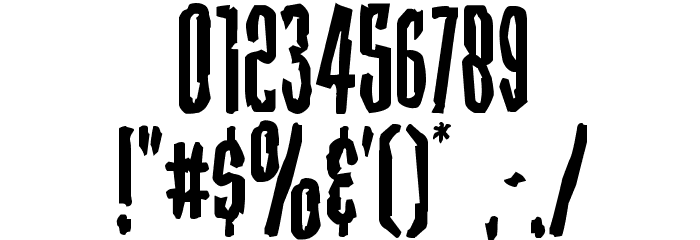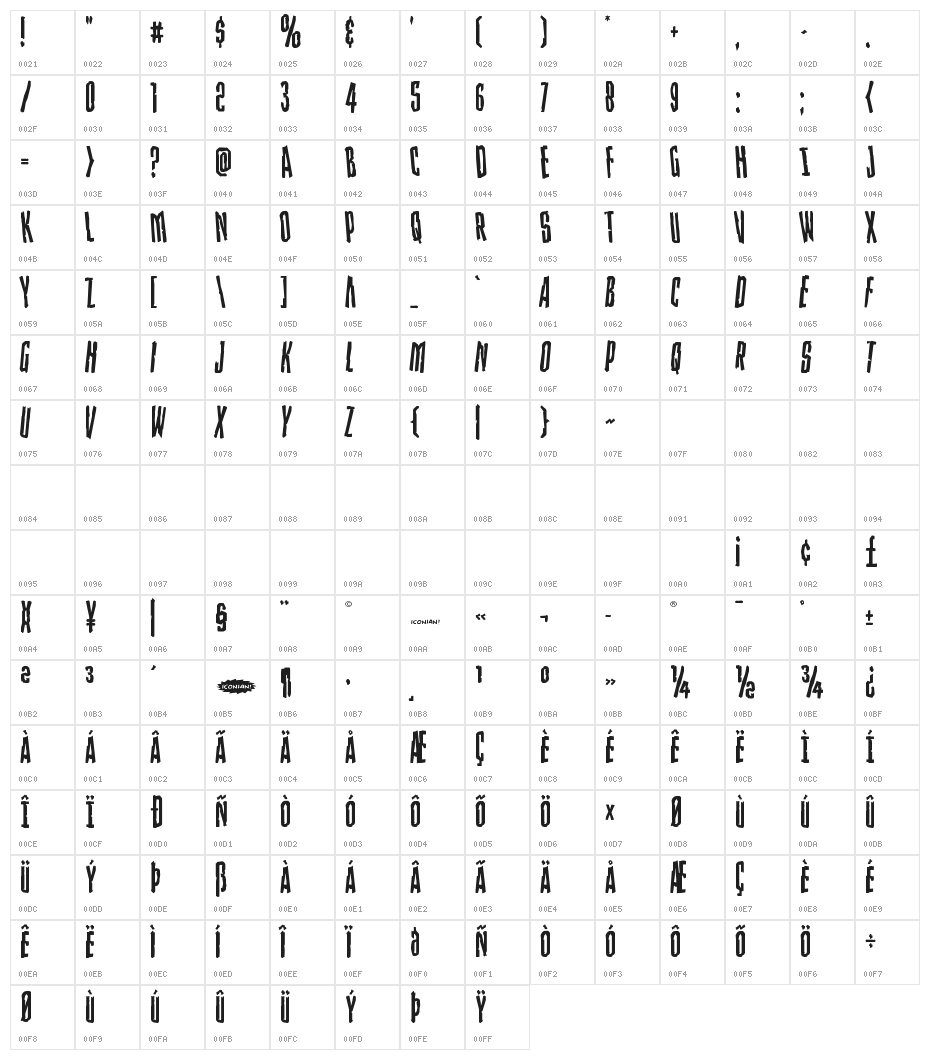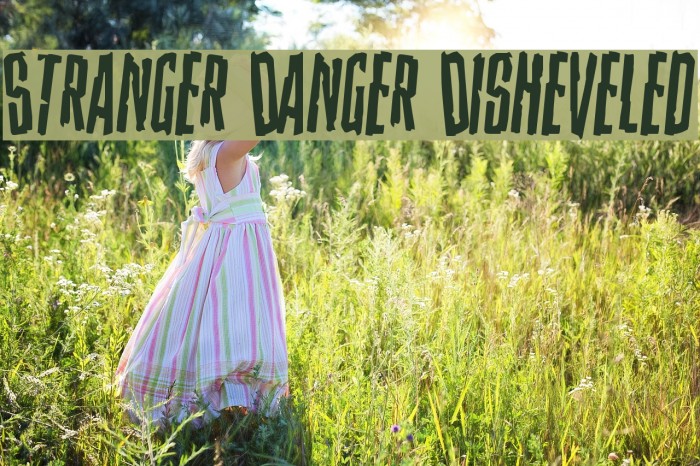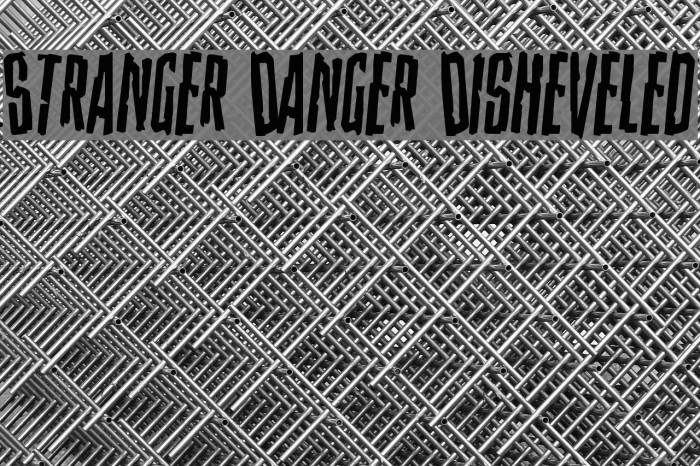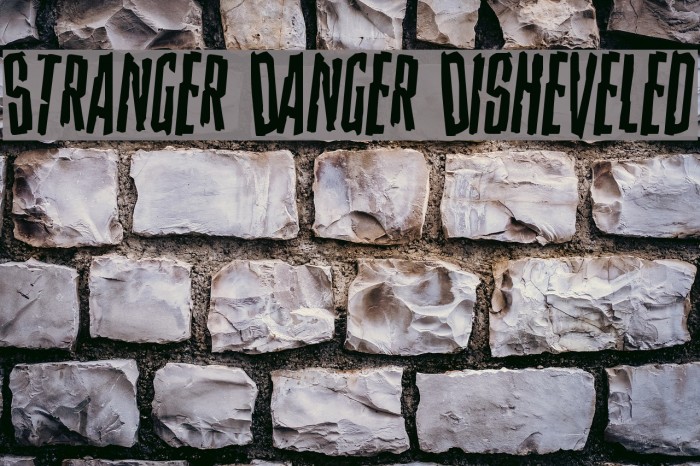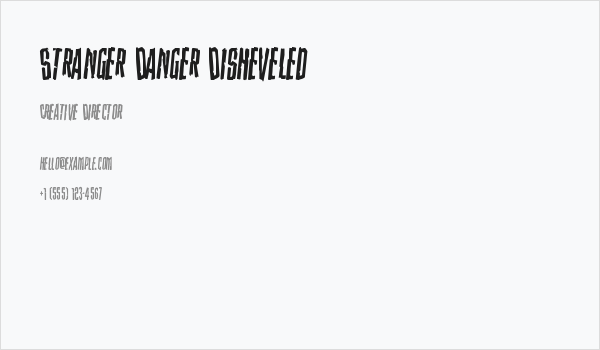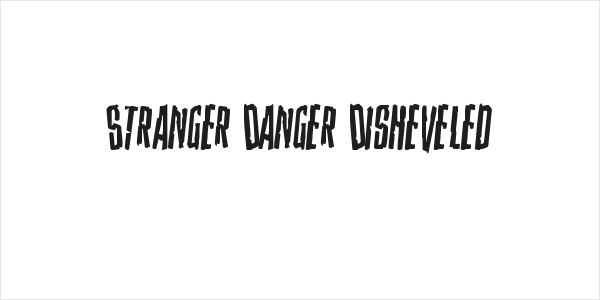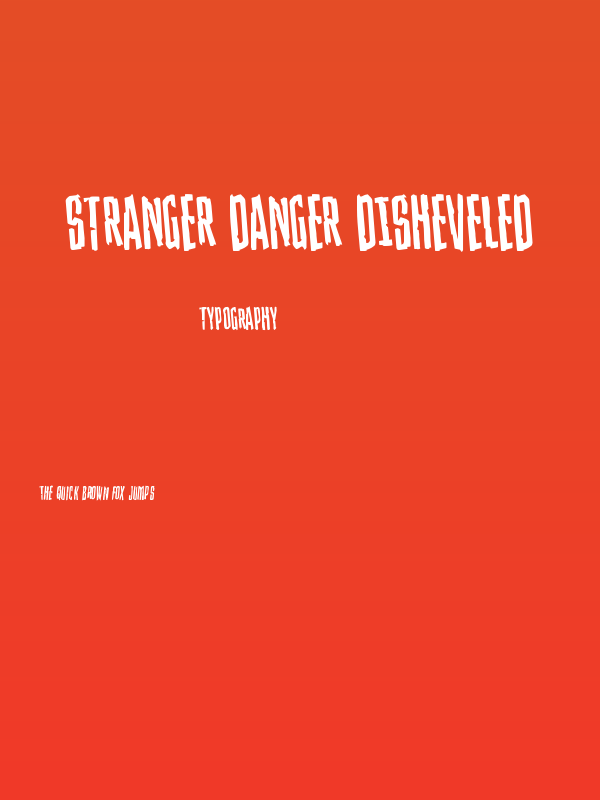
Stranger Danger Disheveled Font
Stranger Danger Disheveled Description
This font features a bold and distressed style, characterized by its uneven and jagged edges that give it a rugged, hand-drawn appearance. The letters are tall and narrow, with a slightly condensed width, creating a striking and impactful look. The uppercase and lowercase letters maintain a consistent style, with exaggerated serifs and irregular strokes that add to the disheveled aesthetic. The numbers and special characters follow the same design principles, ensuring a cohesive visual theme throughout. This font's unique and edgy style makes it ideal for projects that require a bold statement or a touch of rebellious flair.